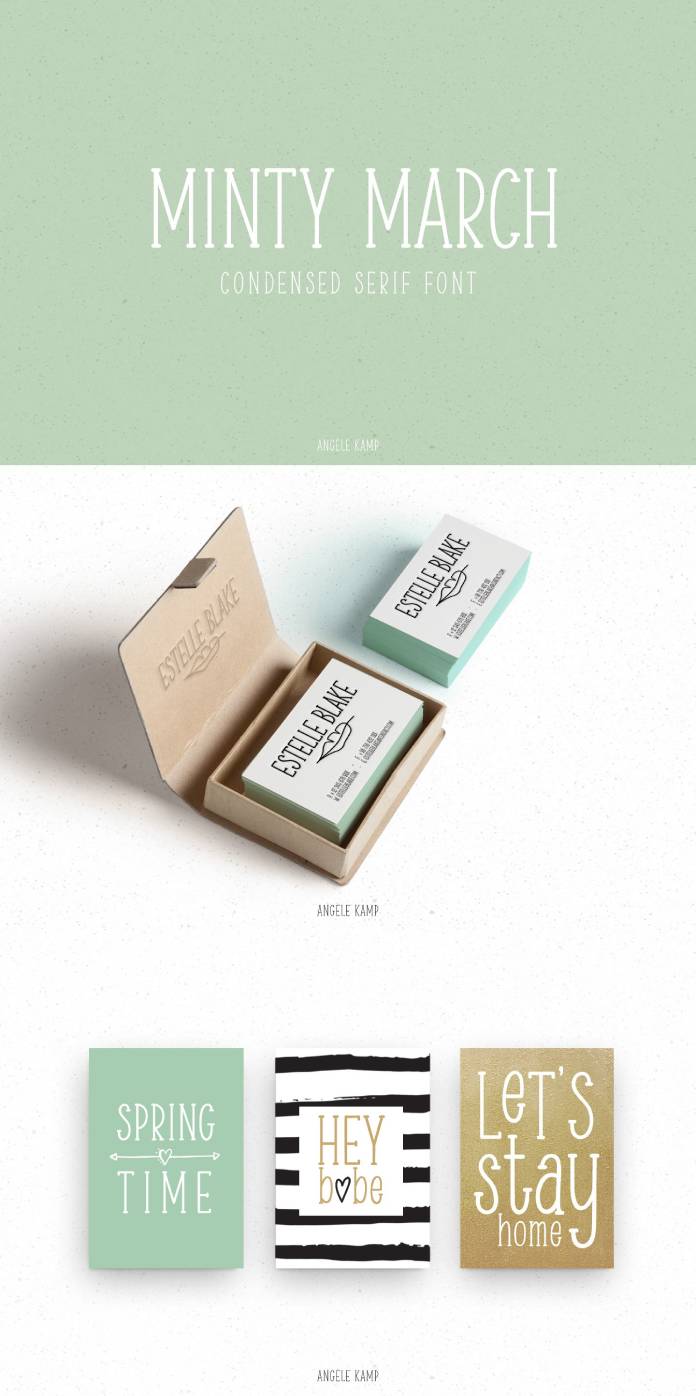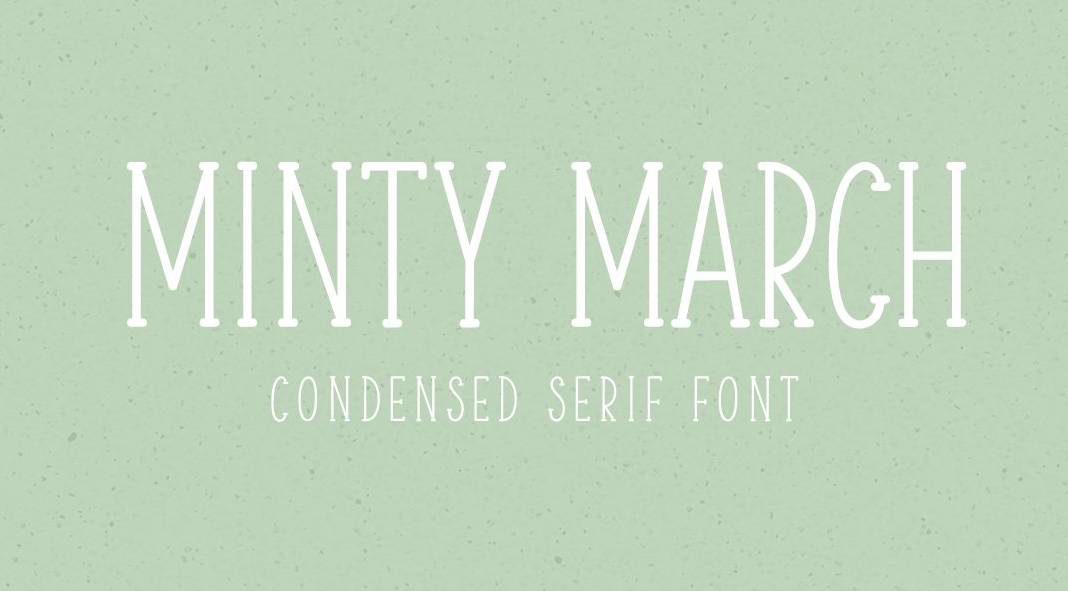
With Minty March, you get the adorable handwritten serif font for all your creative endeavors.
Welcome to the world of Minty March – a delightful creation by the talented typographer Angèle Kamp. If you’re searching for a font that adds a touch of charm and personality to your projects, look no further than Minty March. This handwritten serif font is not just adorable; it’s a versatile tool that can elevate your designs, whether you’re crafting cards, invitations, logos, or birthday announcements.
Embracing the Quirky Elegance
Minty March isn’t your run-of-the-mill font; it’s a condensed serif that effortlessly combines elegance with a playful charm. Its handwritten style exudes warmth and friendliness, making it an ideal choice for those who seek a touch of personality in their designs. With Minty March, each letter feels like a brushstroke of creativity, inviting your audience into a world of unique expression.
Perfect Pairing: Versatility at Its Best
One of Minty March’s standout features is its compatibility with various design elements. This font plays well with others, especially when combined with script fonts. Imagine pairing its serif elegance with a whimsical script; the result is a harmonious blend that adds depth and character to your text, whether it’s for an invitation, logo, or any creative project.
What’s in the Toolbox?
Minty March doesn’t just bring charm; it comes fully equipped with a treasure trove of characters and features. From standard characters to lowercase and uppercase sets, numbers, punctuation, ligatures, and international characters, it covers all the essentials. This comprehensive package ensures that your creative freedom knows no bounds, allowing you to craft diverse and engaging designs effortlessly.
Crafting Unforgettable Moments
In the realm of invitations and greeting cards, Minty March becomes a magical wand in your hands. Its handwritten essence breathes life into each word, making every message heartfelt and memorable. Whether it’s a birthday celebration, a wedding invitation, or a heartfelt note, Minty March adds that extra dash of sincerity and charm to your words.
Bringing Logos to Life
Logos are the face of brands, and Minty March has the power to infuse them with personality. Its condensed, yet friendly serif style lends a distinctive flair to logos, helping them stand out in a crowded marketplace. From quirky boutique shops to artisanal brands, Minty March can transform a simple logo into an emblem that speaks volumes about your brand’s character.
Let Minty March Spark Your Creativity
Angèle Kamp’s Minty March is more than just a font; it’s a creative companion that adds flair, warmth, and versatility to your design toolbox. Its adorable handwritten serif style is a testament to the beauty of unique expression in typography. Whether you’re creating invitations, crafting logos, or breathing life into your projects, Minty March stands ready to make your creative vision come to life.
So, dive into the world of Minty March and let its charm work wonders for your designs. Unleash your creativity, combine it with other fonts, and watch as your projects bloom with a touch of handwritten elegance and personality!